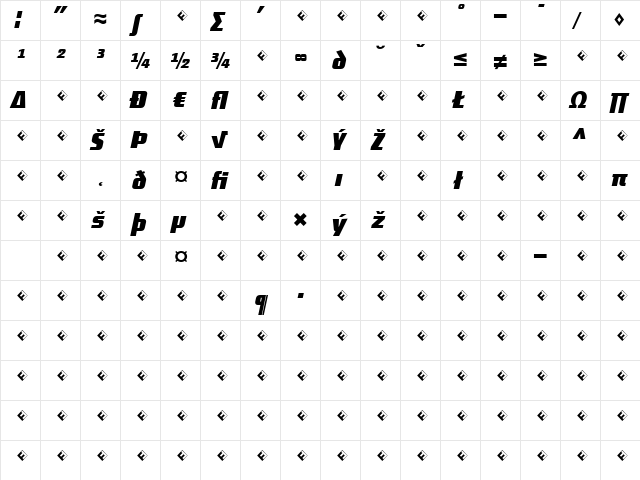
District-BoldItalicAltExp Regular Font Preview
| Foundry | FontShop International |
| Designer | Albert Boton |
Design Context for District-BoldItalicAltExp Typeface
District-BoldItalicAltExp offers clean, dependable letterforms without strong stylistic allegiance, making it a practical choice for designers who need flexibility. The slanted form adds forward momentum and visual energy. Its bold stroke weight gives it real presence on the page.
Pro Tip: Try District-BoldItalicAltExp for annotation and caption copy alongside an upright companion — the contrast in angle creates a dynamic but ordered typographic system.